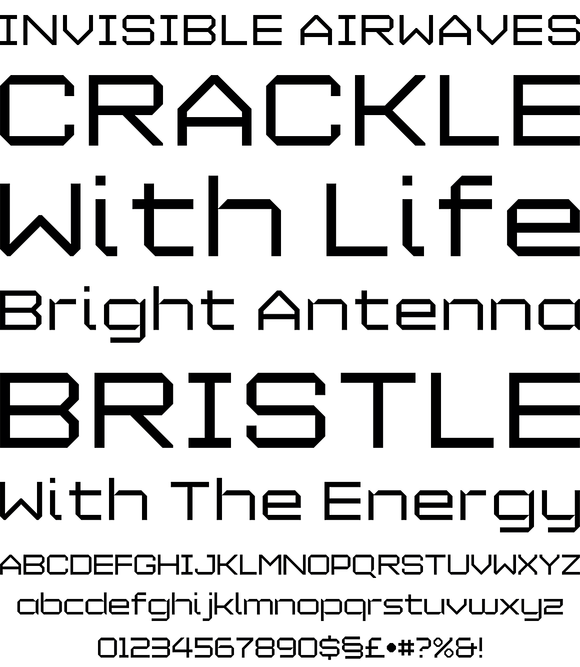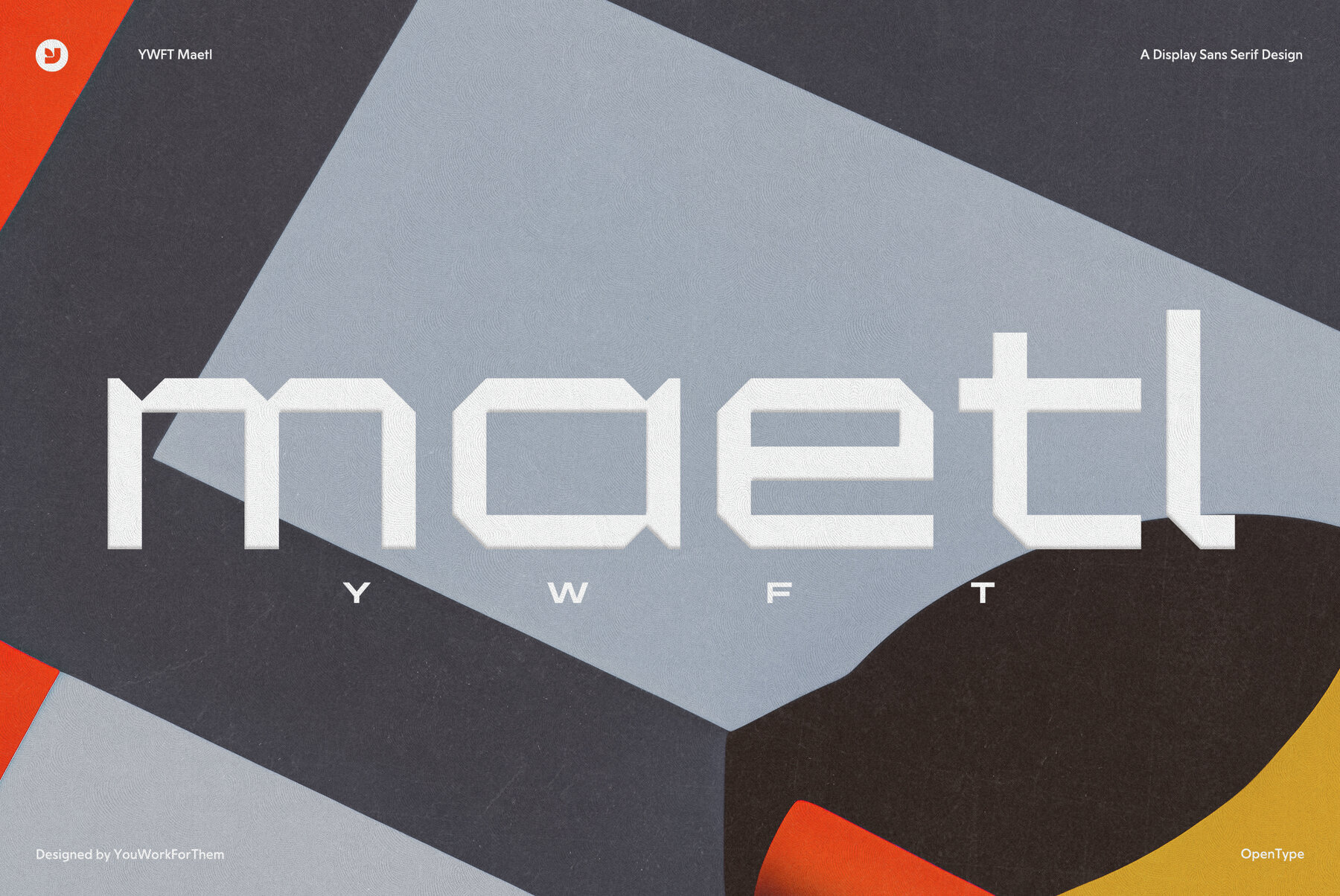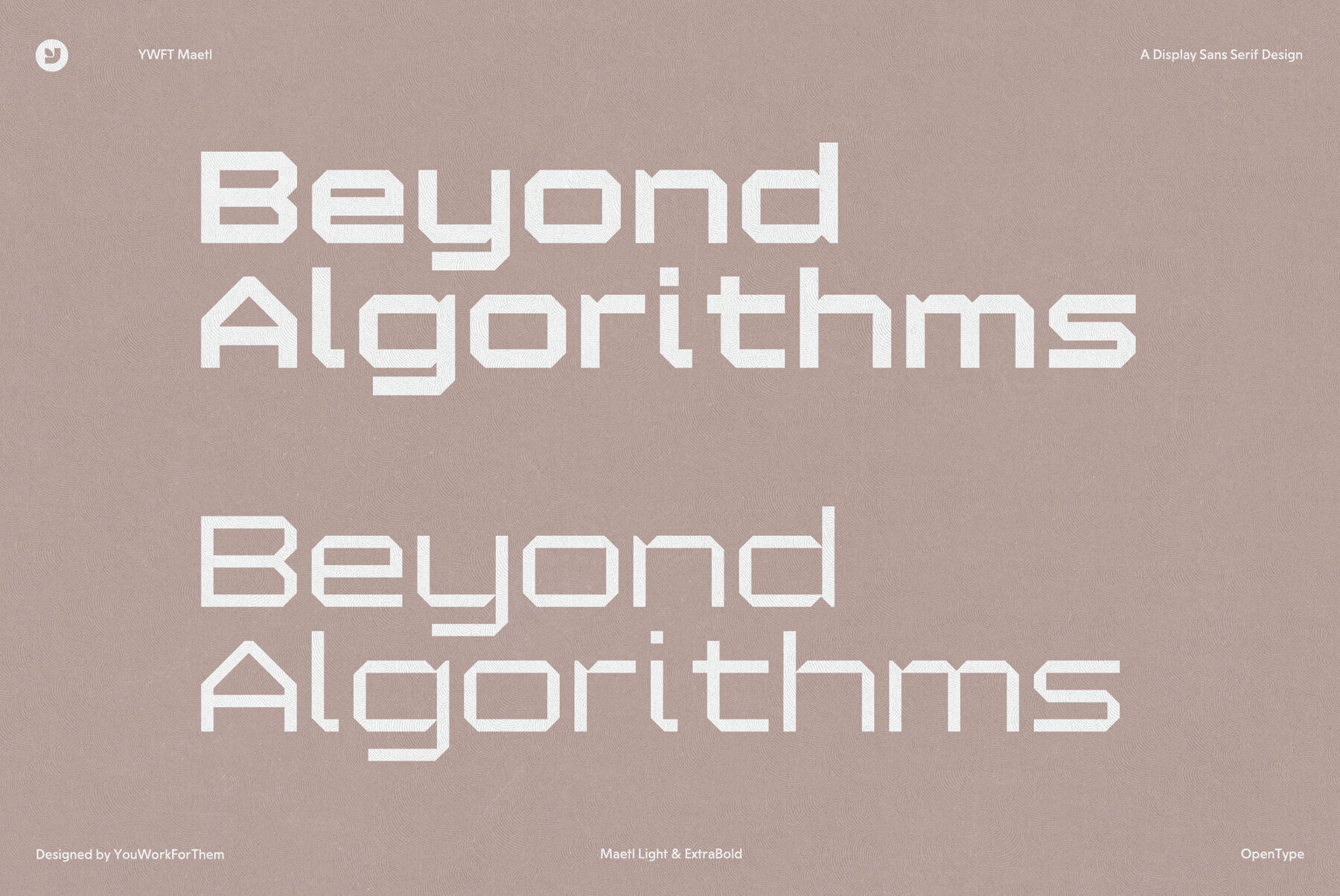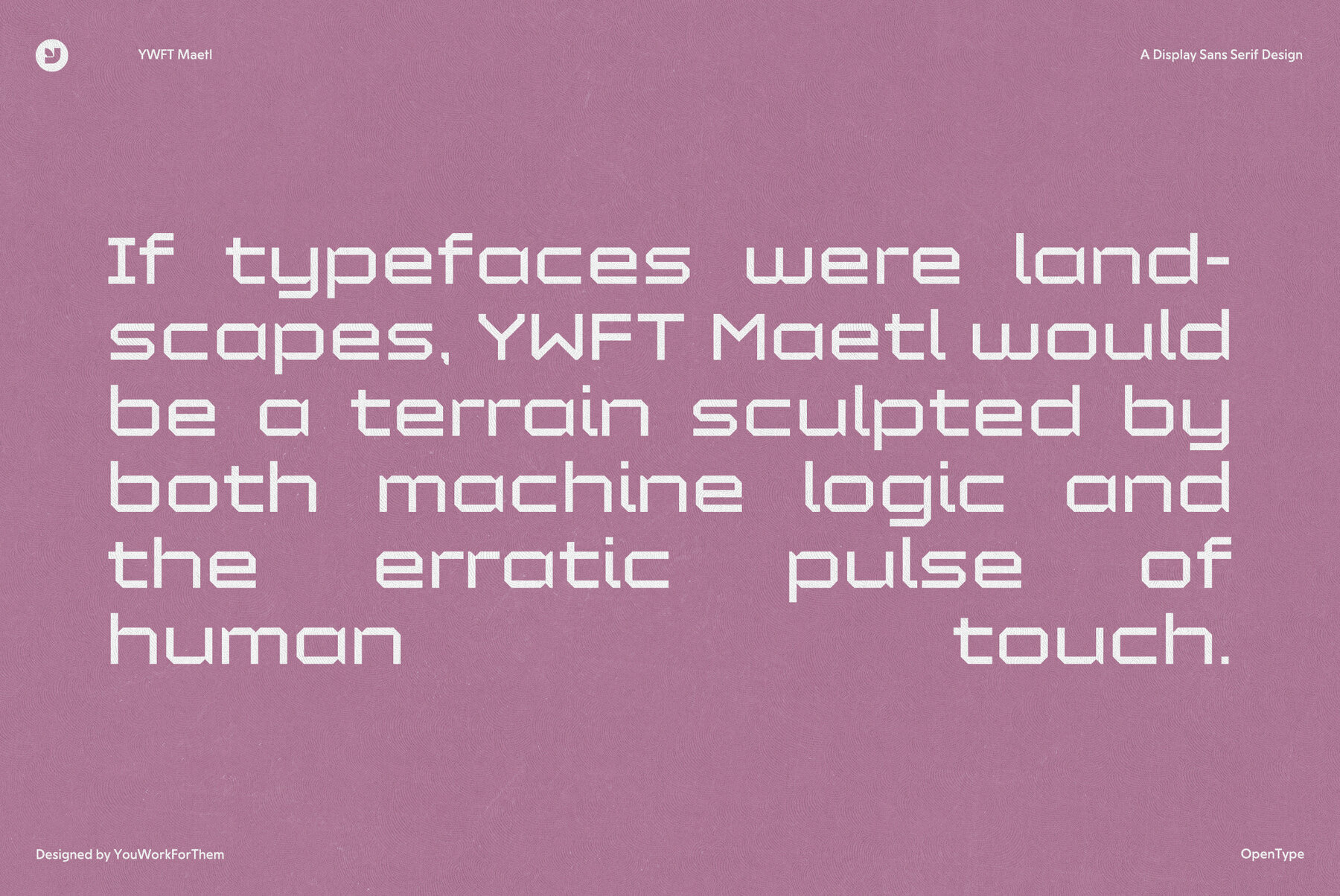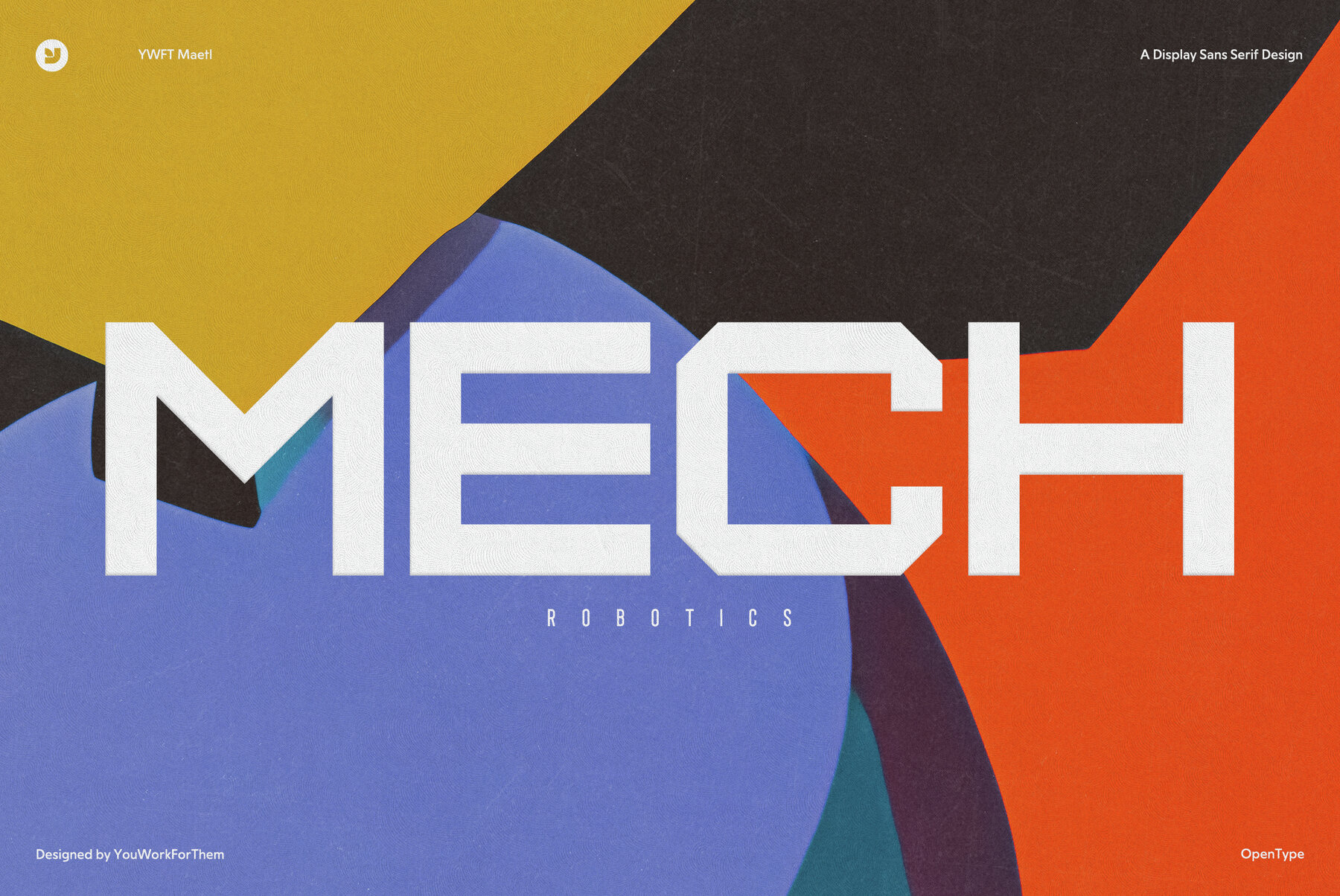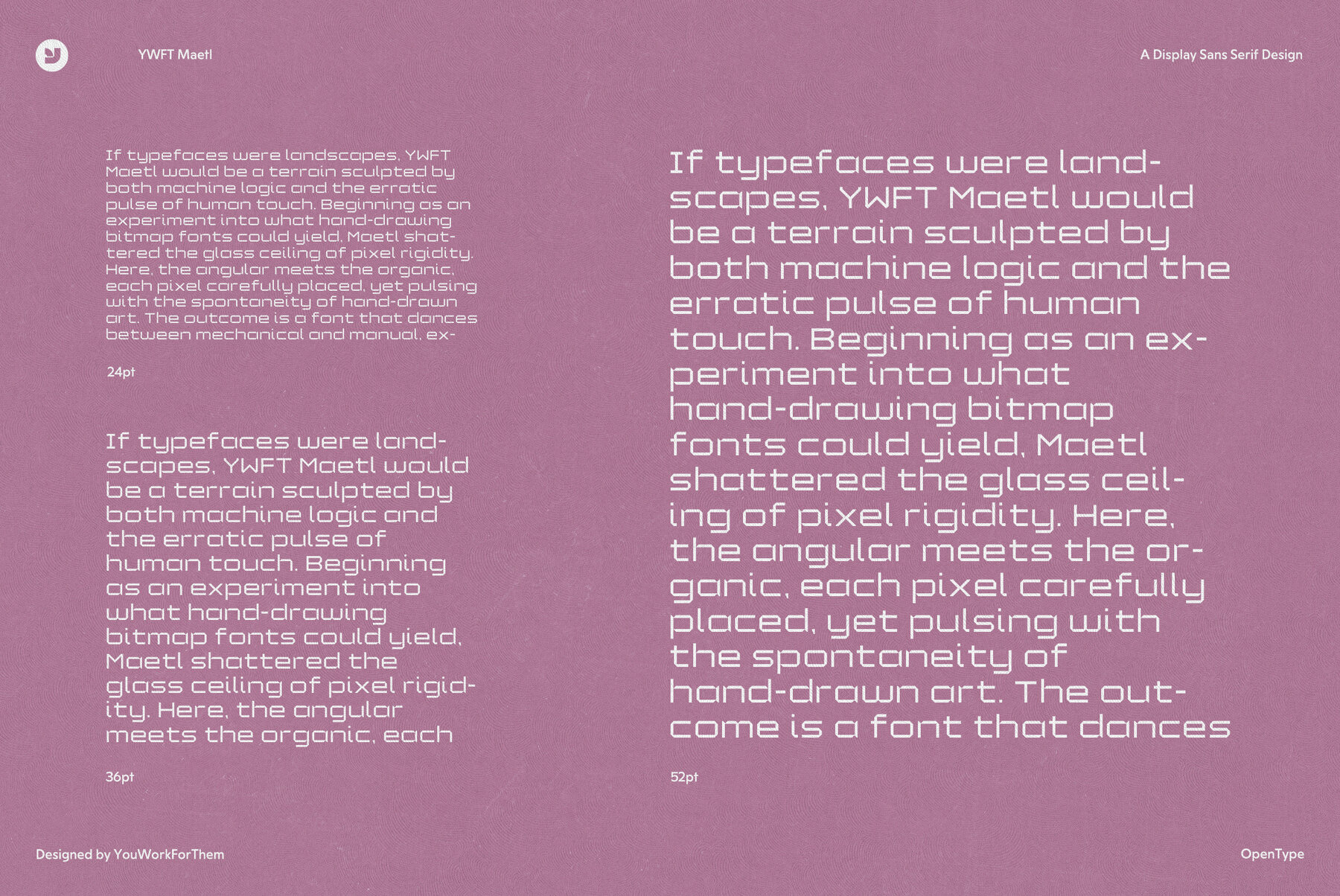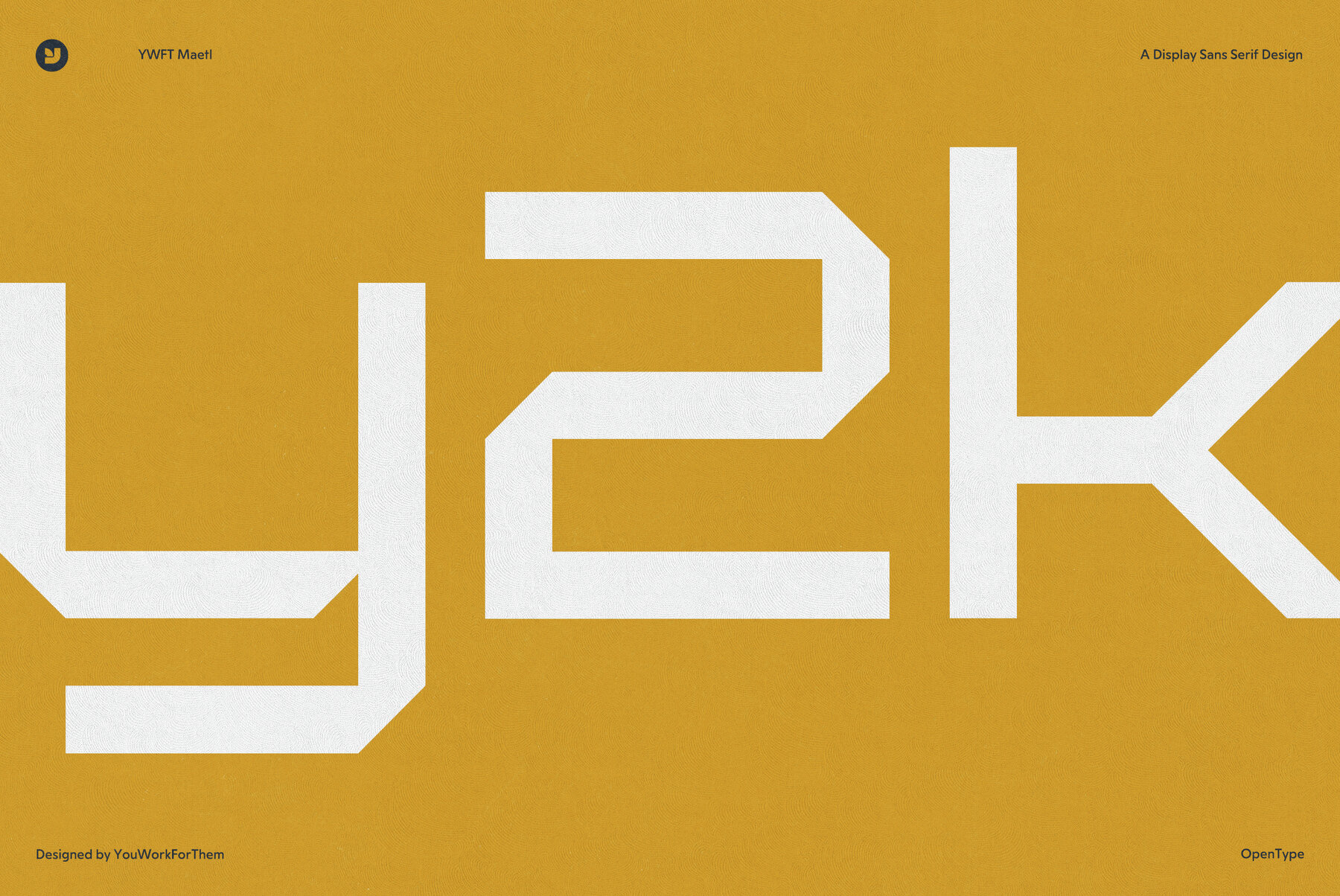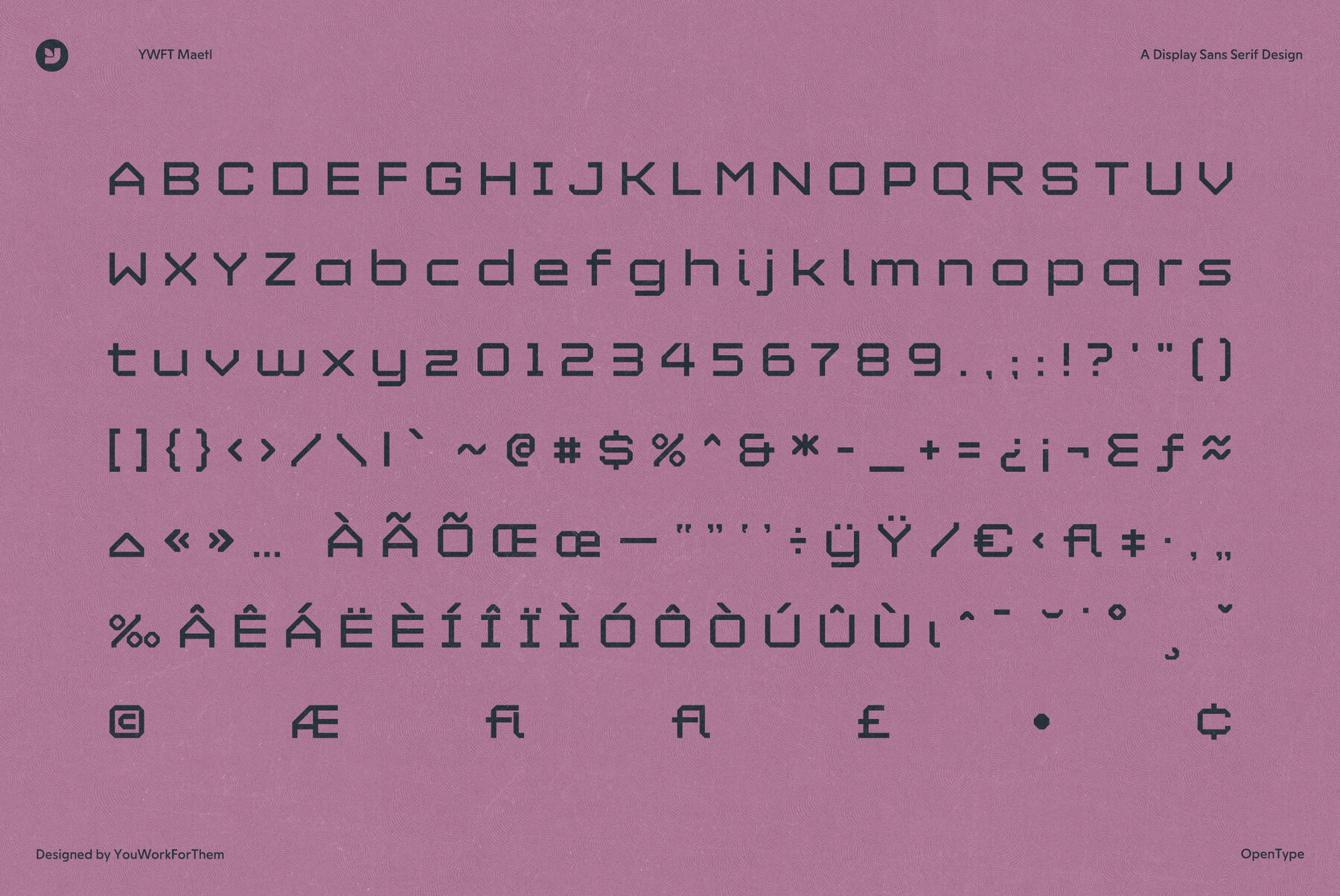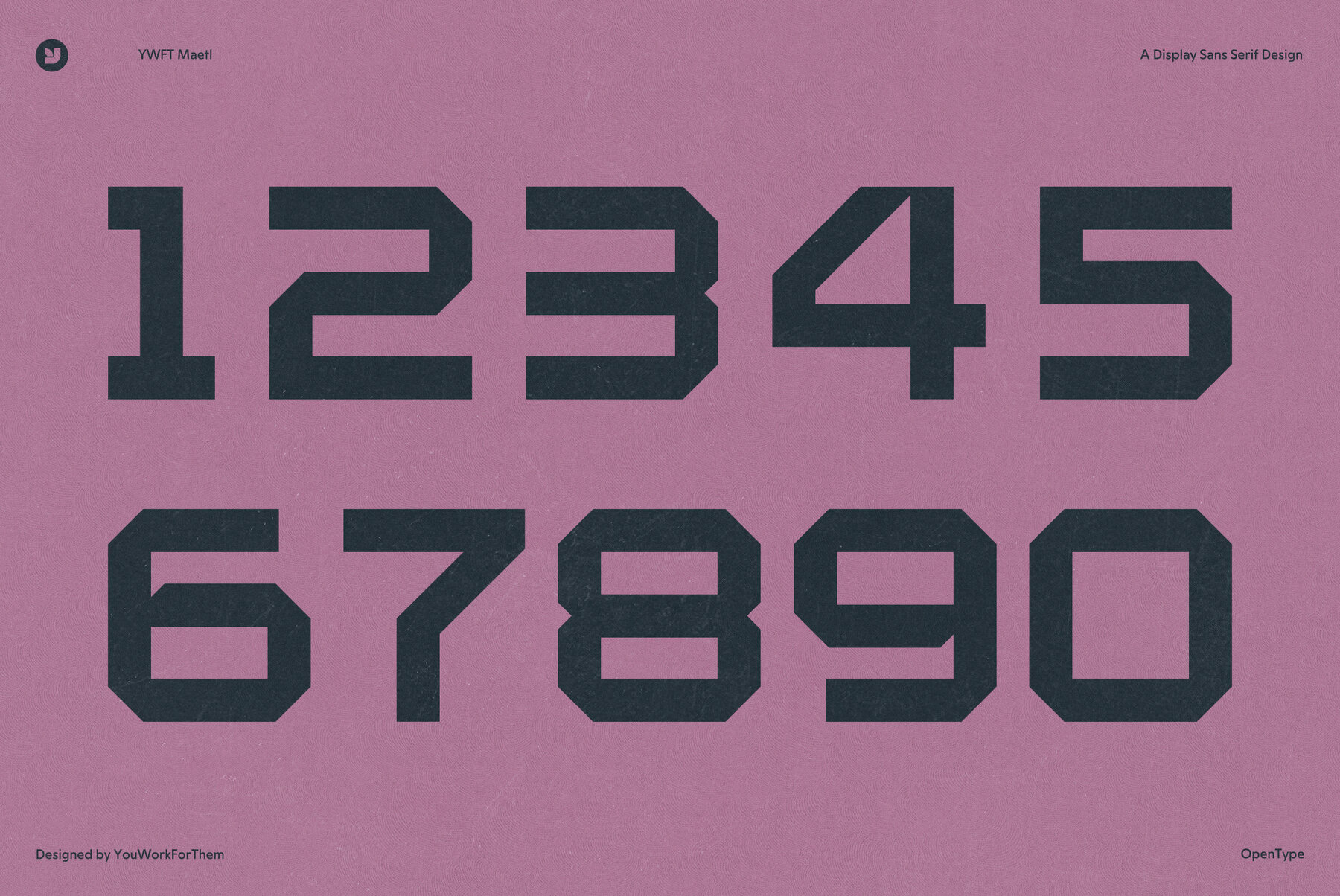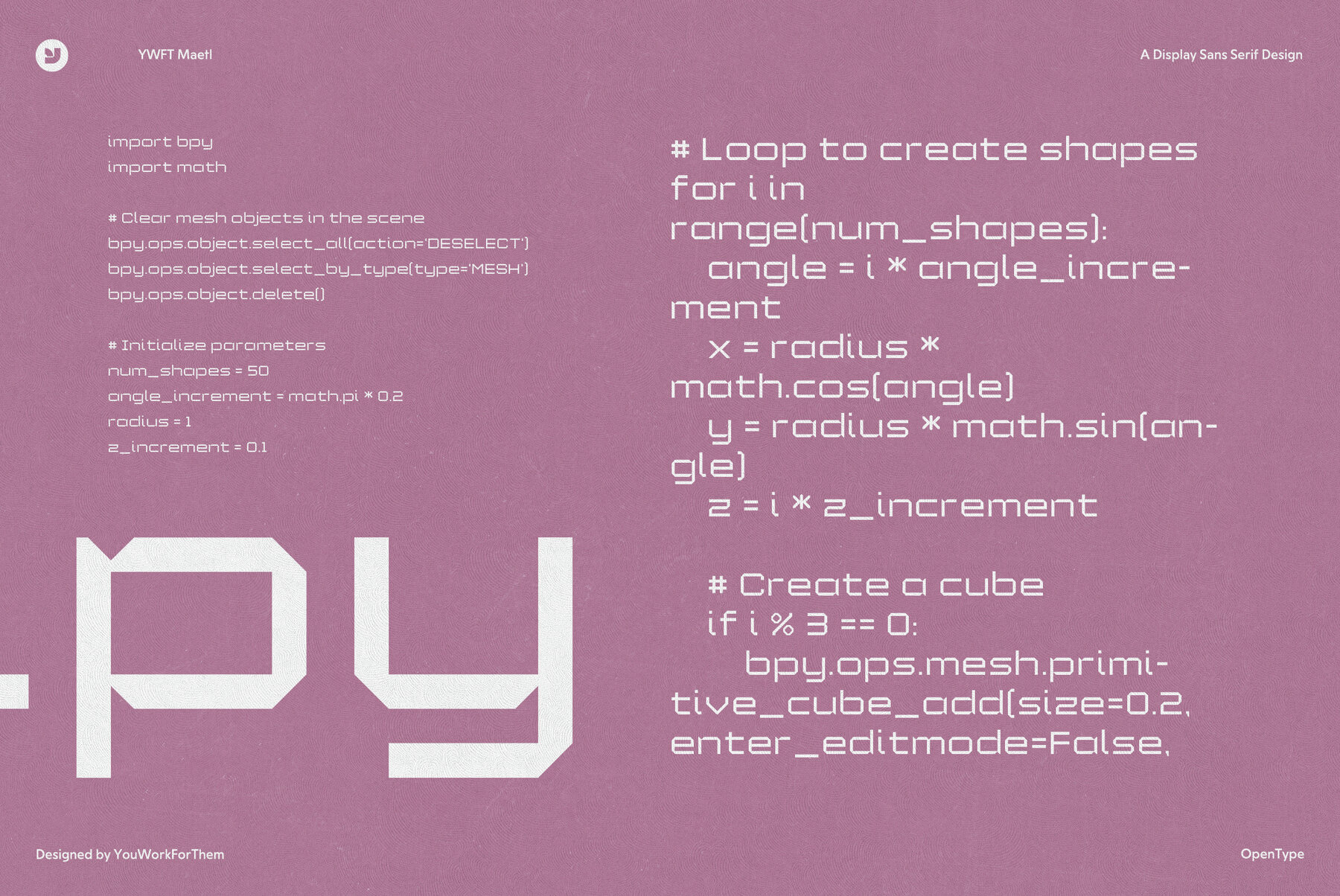
YWFT Maetl started as an exploration into hand drawing bitmap typefaces. What happens to edges and angles when you draw bitmaps by hand? We wanted to know. The final drawings of YWFT Maetl ended up with minimal serif details on certain letters, and angles that wouldn't have been possible any other way. YWFT Maetl is an extensive design with five different weights, plus five more additional oblique weights, and was converted to Opentype font format in 2010. Designed exclusively by Michael Cina and YouWorkForThem.